Alphabetical Playground
Author: Nigel Cottier
Publisher: Slanted Publishers
Nigel Cottier’s investigation into how we can use the Alphabet as a container for countless graphic systems, conceptual ideas, and endless play.
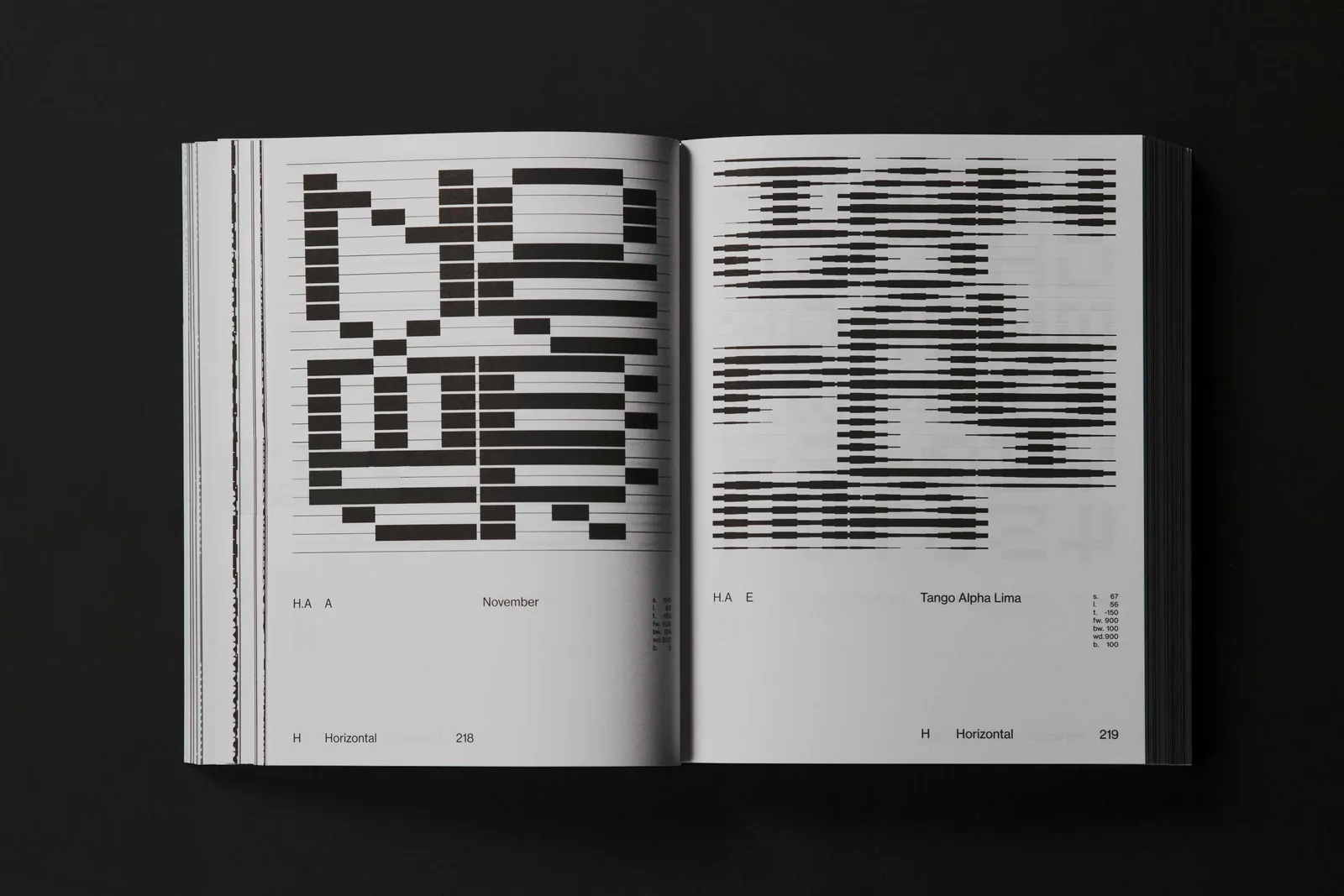
Alphabet Logo
Publisher: Counter Print
A collection of over 500 logos, each based on a single symbol.
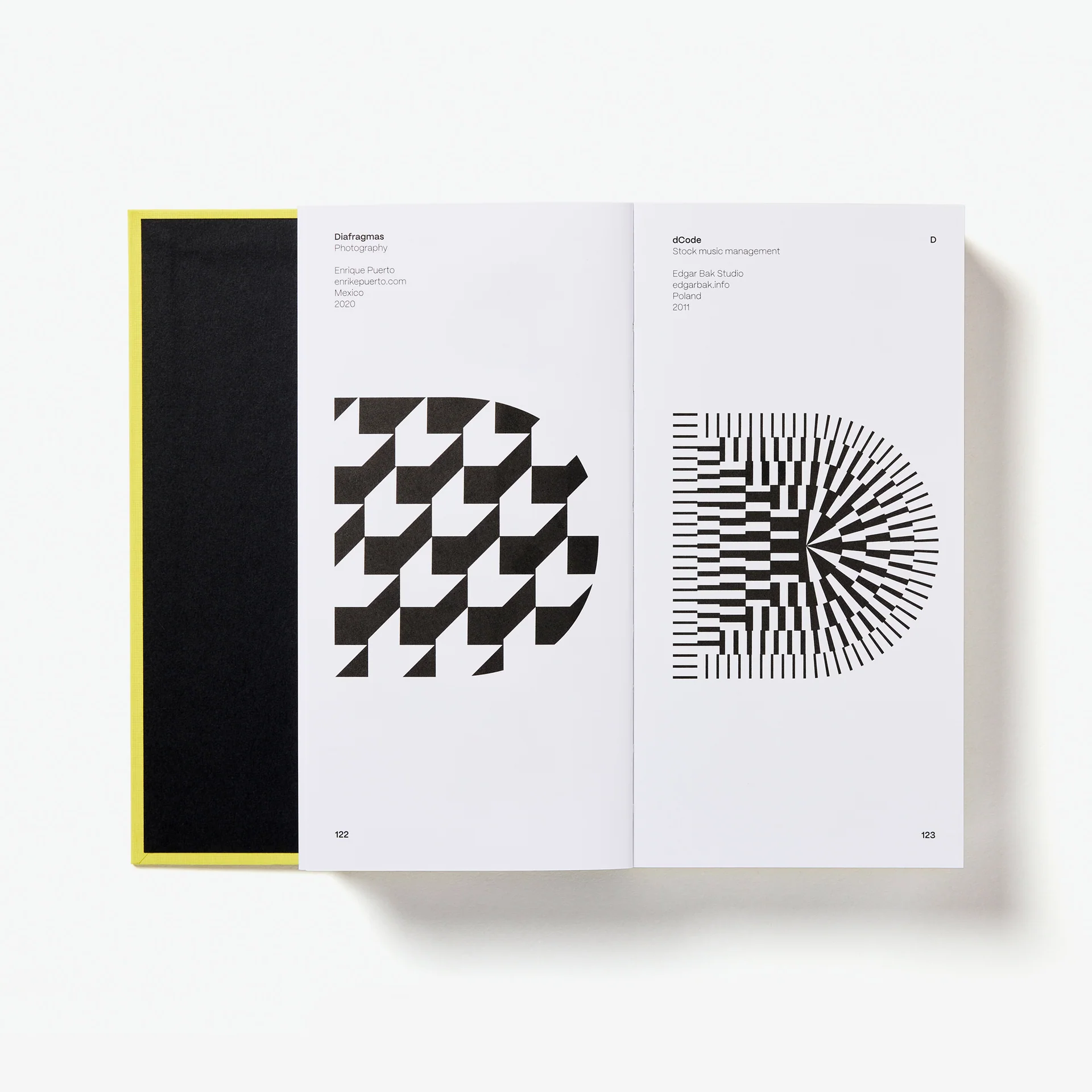
Building Ligatures: The Power of Type
Editor: Linda Kudrnovská
Publisher: TypeTogether
Selected essays by Fiona Ross, Catherine Dixon, Gerry Leonidas, Veronika Burian, José Scaglione, and others reflect on philosophical and ethical considerations, as well as the practical and technological aspects of typographic life.
Clara Istlerová: A Life Among Letters
Author: Anežka Minaríková
Publisher: Inventory Press
The first publication in English on the career of Czech graphic designer and typographer Clara Istlerová.
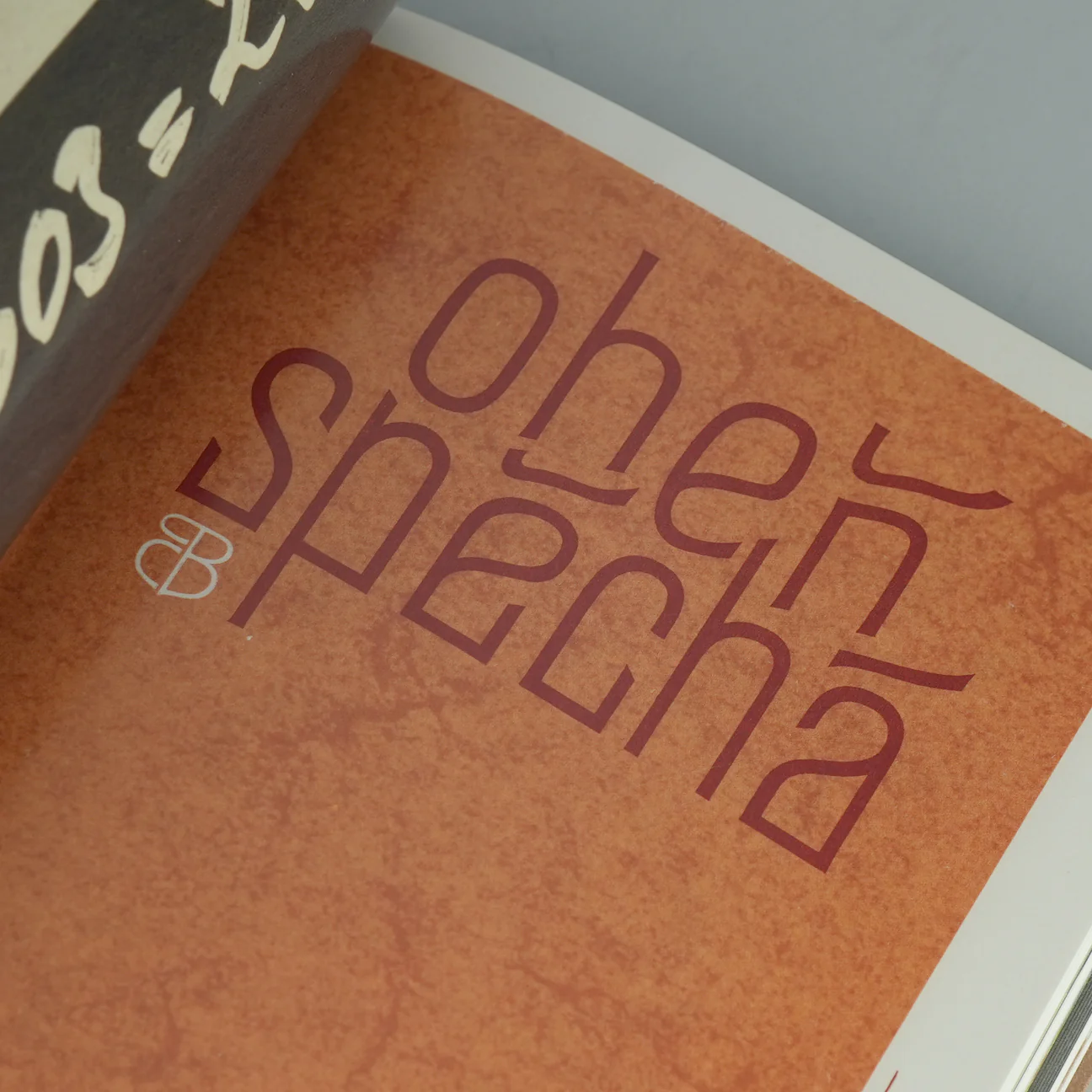
Conspiratorial Design. Information design for the bigger picture
Author: Carlo Bramanti
Publisher: Set Margins
A book about how design contributes to the formation of conspiracy theories.
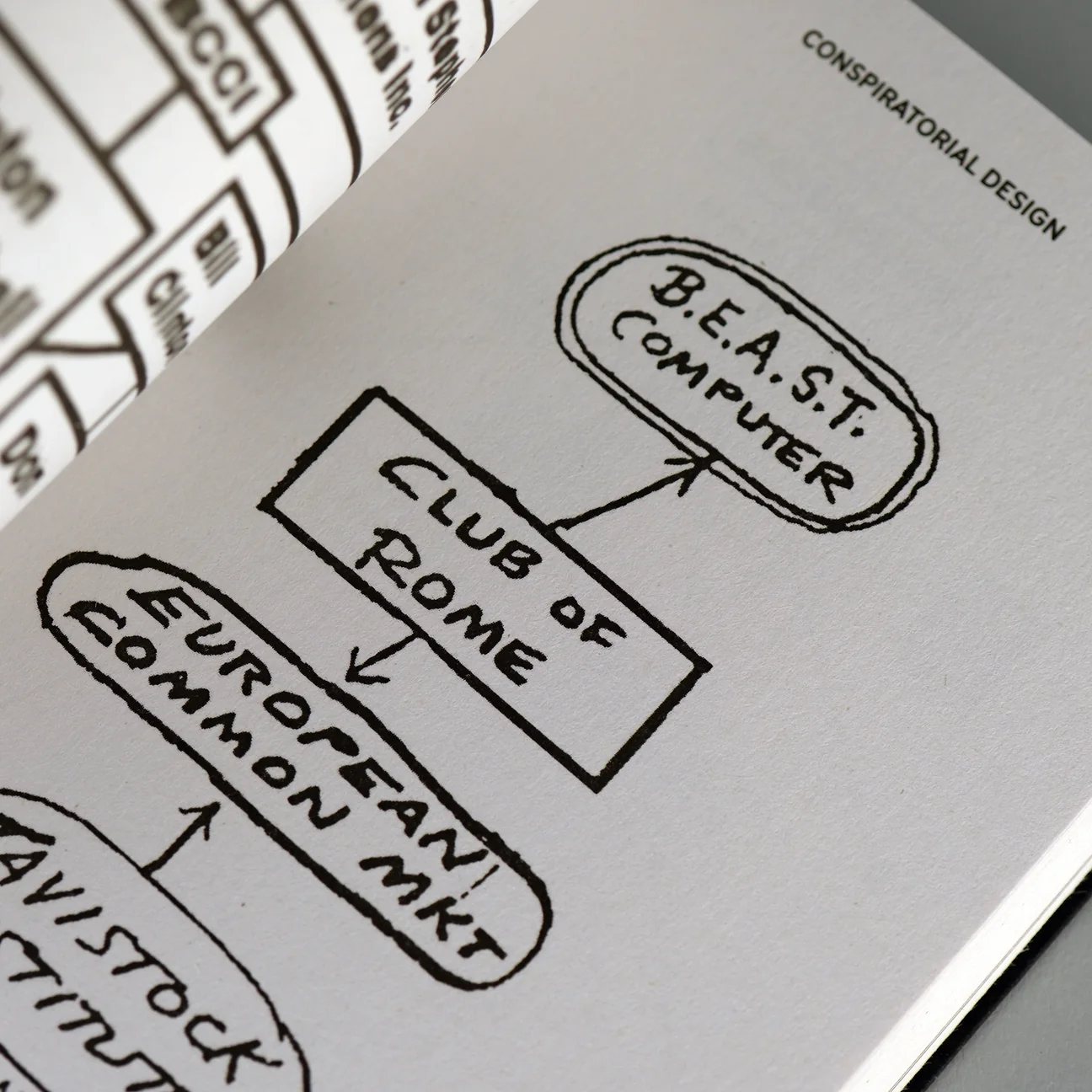
Design Against Racism
Author: Omari Souza
Publisher: Princeton Architectural Press
A historical and philosophical exploration of the impact of design on underserved communities, examining the field’s shortcomings as well as its potential to create positive change.
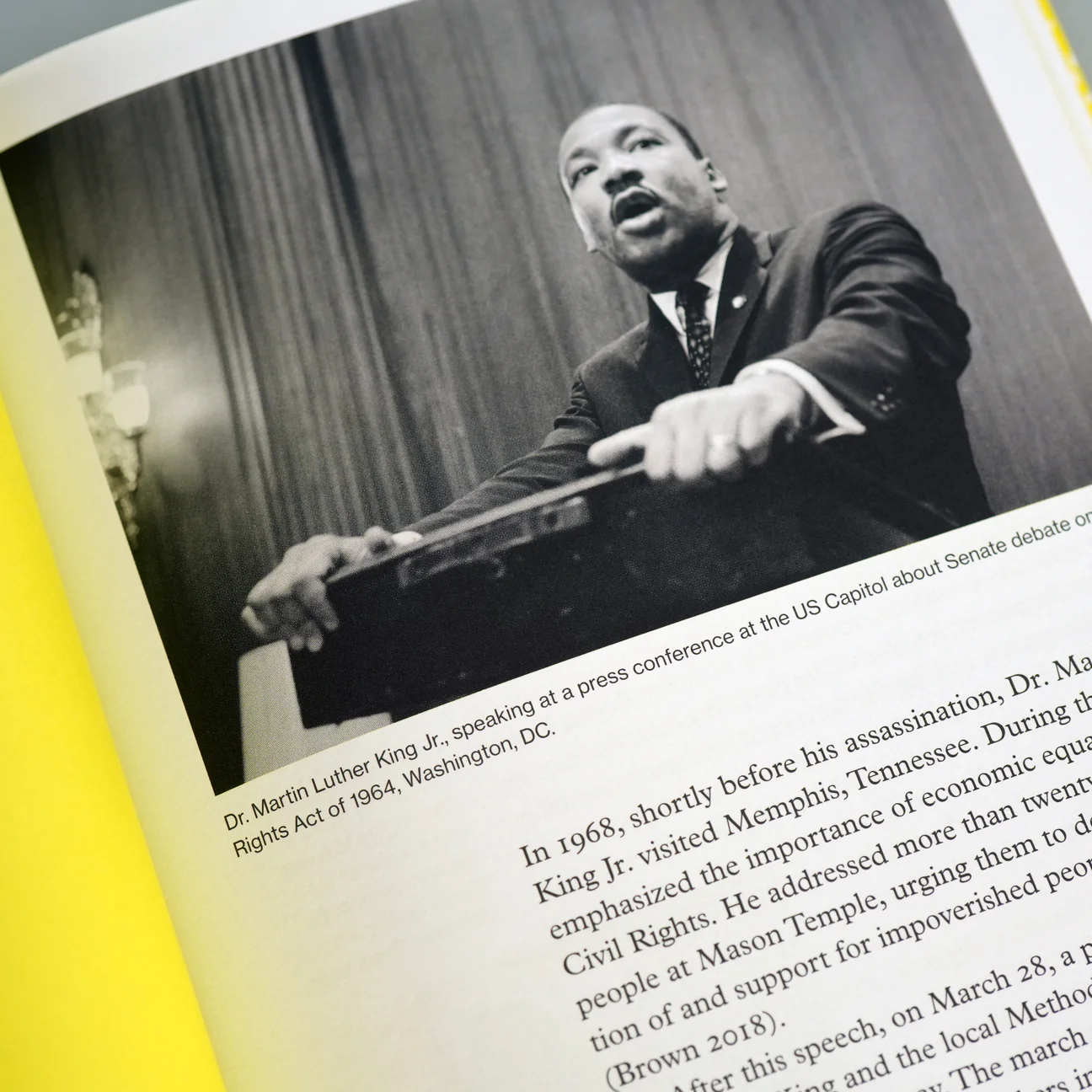
Design History Reader
Author: Kristen Coogan
Publisher: Onomatopee
A collection of essays critically examining the history of design as it is taught in Western universities.
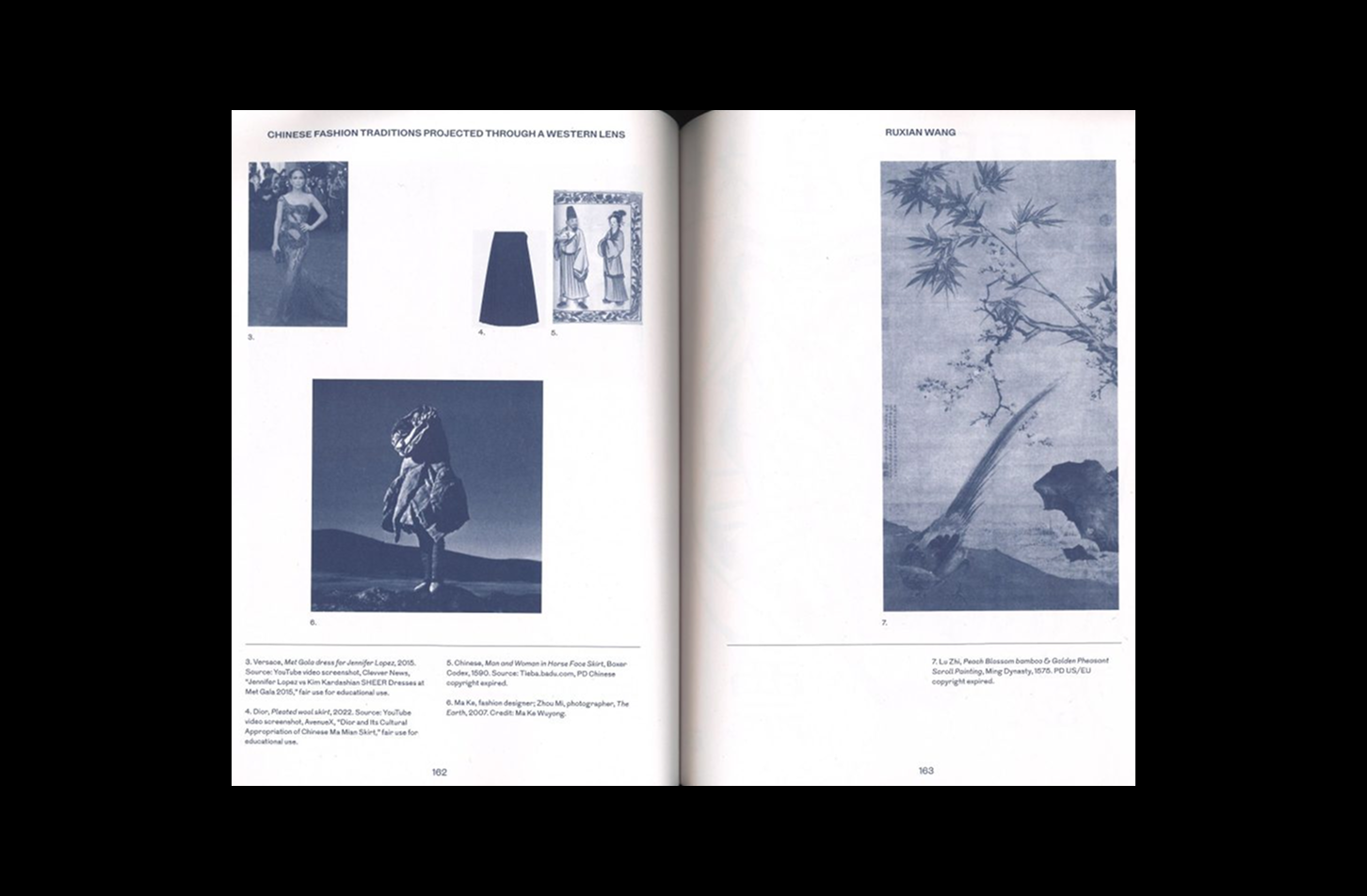
Disarming Design
Author: Annelys de Vet
Publisher: Valiz
Using three
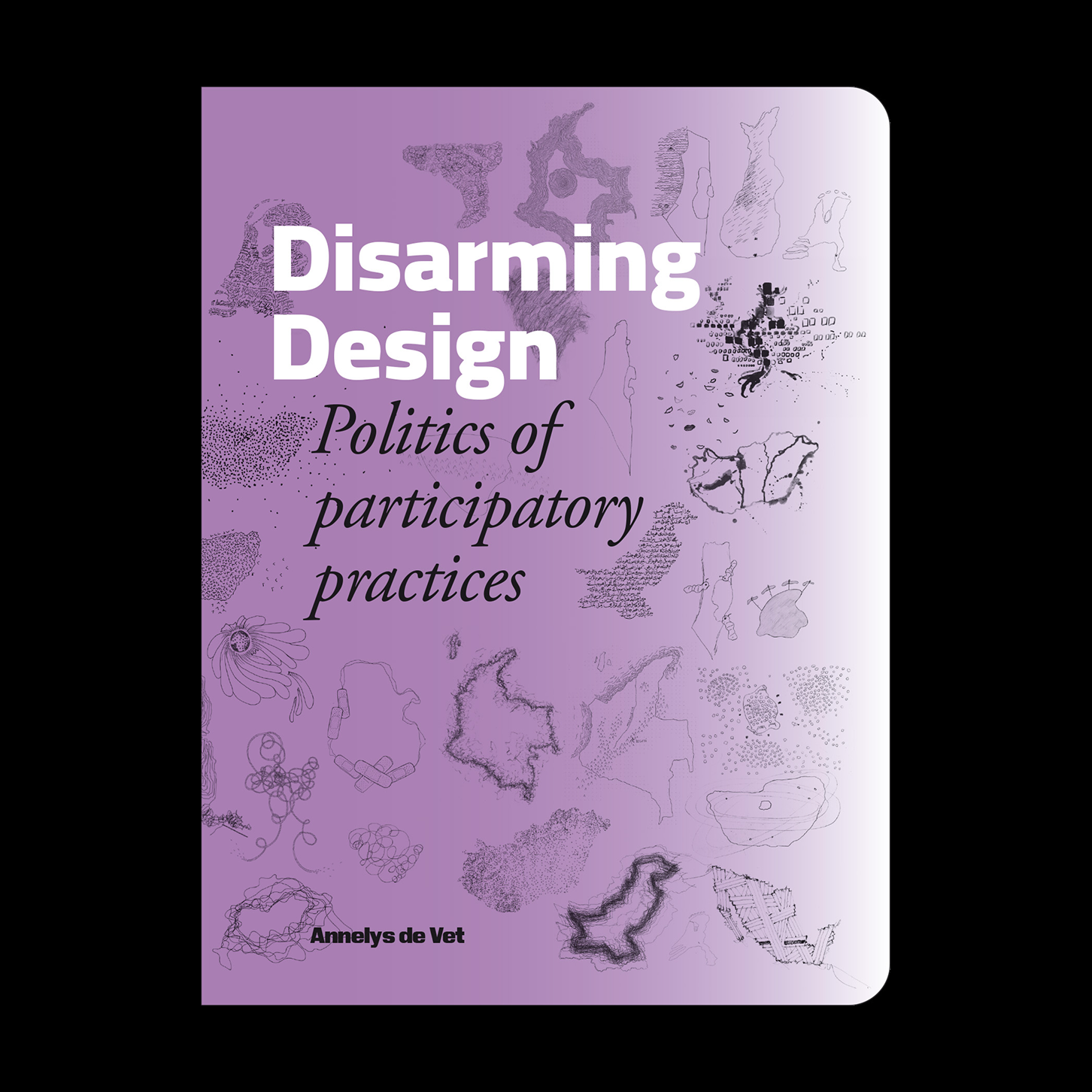
Disorder. Swiss Grit Vol. II
Authors: Chris Ashworth, Marvin Scott Jarrett, Adrian Shaughnessy
Publisher: Thames & Hudson
A book dedicated to the career of Chris Ashworth, charting his “Swiss Grit” approach from the influential Ray Gun magazine in the 1990s to his experimental type projects of today.
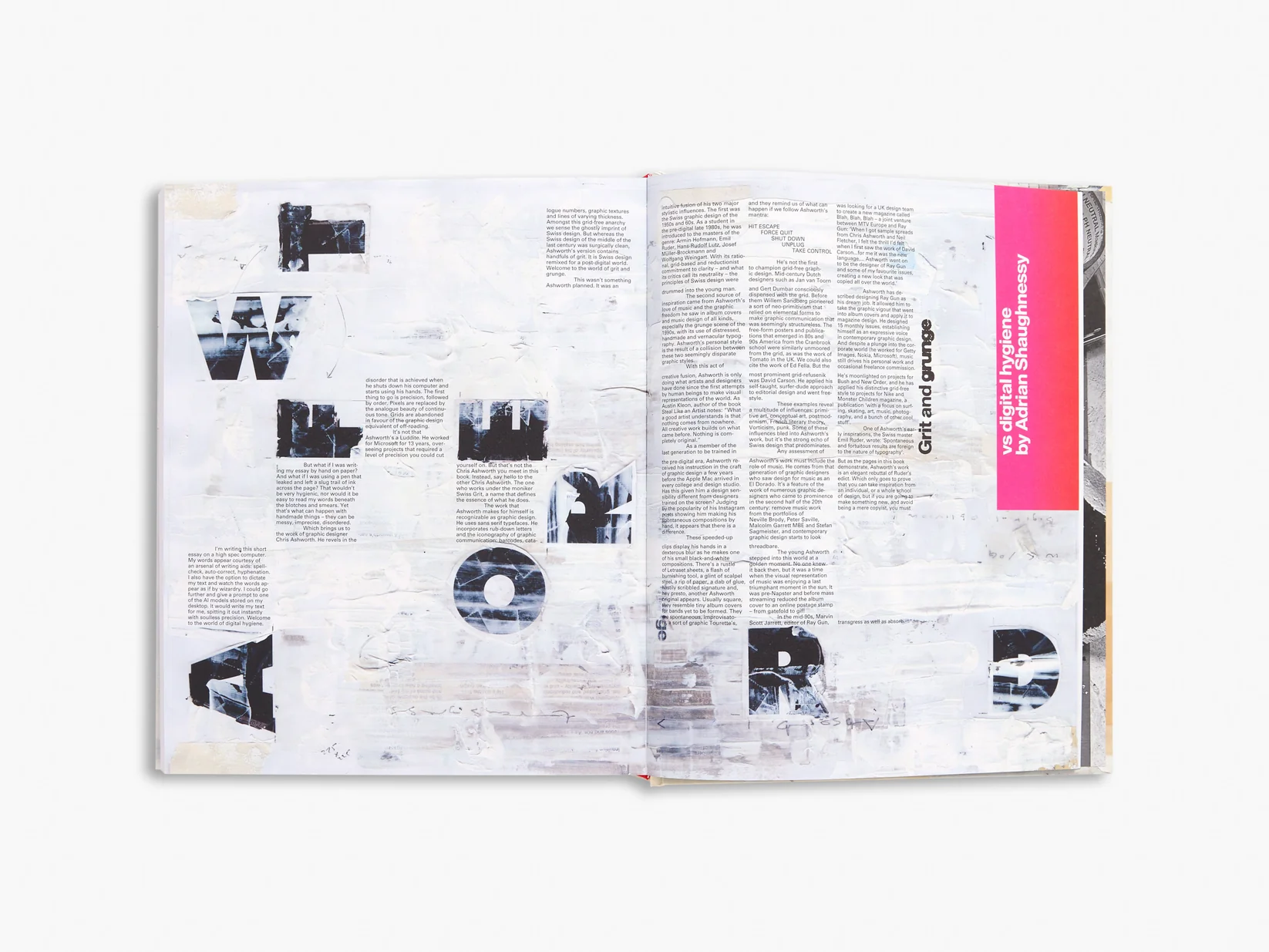
Face with tears of joy
Author: Keith Houston
Publisher: W. W. Norton & Company
An indispensable guide to the most vibrant part of modern language, by the author of the Shady Characters blog.
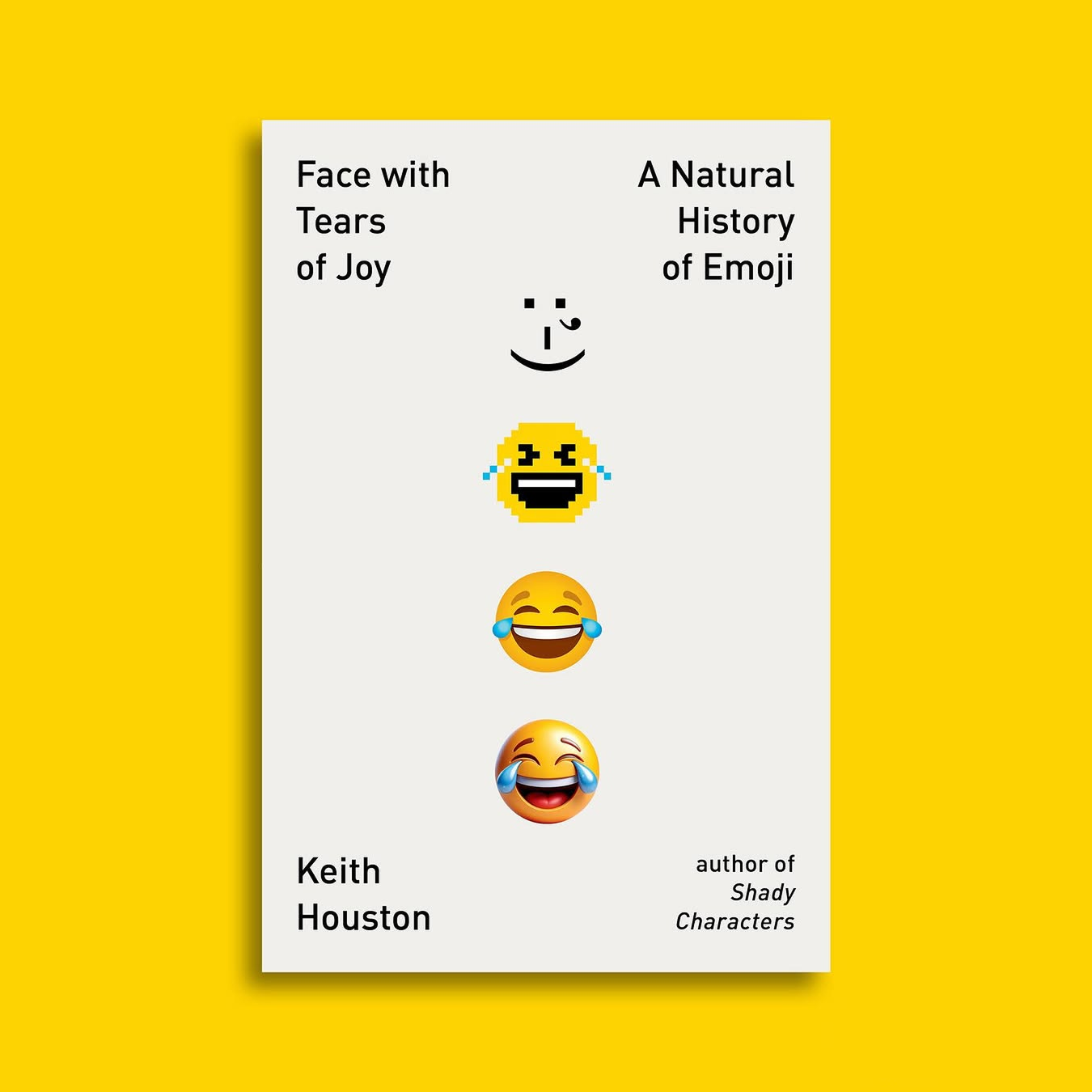
Fred Troller Design
Editor: Dani Piderman
Publisher: United editions
A monograph on Fred Troller, a designer who worked, among others, with American Airlines and IBM.
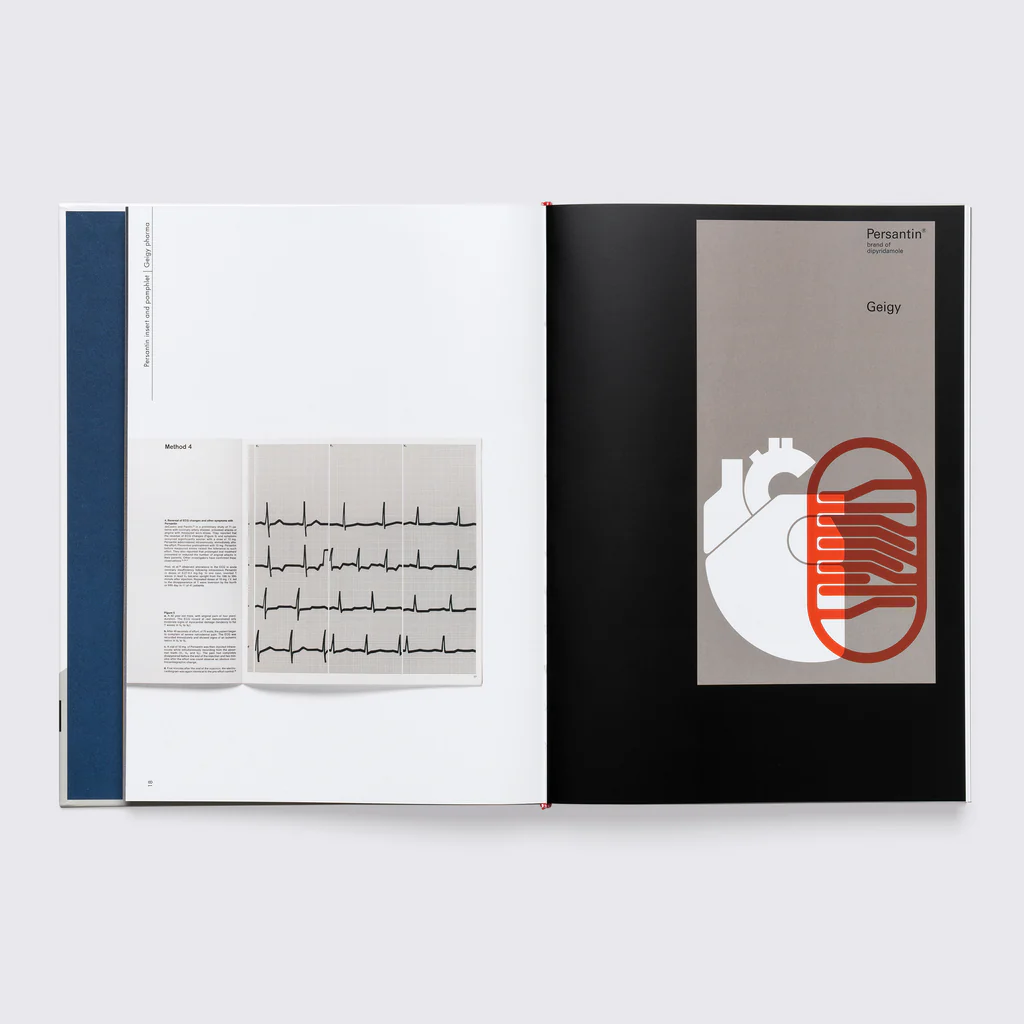
Gérard Ifert: A Design Antihero
Authors: Ascanio Cecco, Tony Côme, Catherine de Smet
Publisher: Éditions B42
A monograph on Gérard Ifert, who has worked as a graphic designer, scenographer, photographer, and furniture designer.
Graphic Design: 1890 to Today
Author: Jens Müller
Publisher: Taschen
Jens Müller traces the history of graphic design over the past 135 years. Among the most important projects of this period, he highlights Massimo Vignelli’s New York City subway signage, Milton Glaser’s I ❤️ NY lettering, and Stefan Sagmeister’s posters.
Graphic Languages — A Visual Guide to the World’s Writing Systems
Editor: Oliver Häusle
Publisher: Slanted Publishers
A book that explores the boundaries of legibility of individual characters in Cyrillic, Hebrew, Georgian, Armenian, Latin, Devanagari, and other scripts.
International Poster Book #10
Publisher: INTL
A catalogue of the British poster competition International Poster Exhibition, featuring commentary from the jury.
Ken Garland: Structure and Substance
Editor: Adrian Shaughnessy
Publisher: United Editions
A reissue of the monograph on the English designer Ken Garland, with a foreword by Adrian Shaughnessy.
Kulachëk
Publisher: Counter Print
The first monograph on designer Anna Kulachёk.
Lettres Décoratives: A Century of French Sign Painters’ Alphabets
Introduction: Morgane Côme
Publisher: Letterform Archive
A kaleidoscopic survey of letterforms from 19th- and 20th-century France.
Logo Beginnings. Logo Modernism
Аuthor: Jens Müller
Publisher: Taschen
A collection of 1,000 well-known and lesser-known logos from the 19th and 20th centuries.
MXTP Vol. 1
Publisher: Maxitype and Plasma
A collection of “blocky, experimental, arrogant, distorted, unbalanced, delicate, psychedelic, bubbly” typefaces drawn by participants of the Maxitype residency in Cucuron, France.
Molecular Typography Laboratory
Аuthor: Kobi Franco
Publisher: Slanted Publishers
A speculative research project that delves into experimental typography, exploring the intersection of function versus aesthetics and content versus form.
On the Edges of Graphic Design from A—Z—∞
Аuthor: Anja Lutz
Publisher: Set Margins
Residents of the Berlin-based space A — Z Presents, focused on experimental and multidisciplinary graphic design, share their visions of the future of design and stories from the past.
Unbound
Аuthor: Karel Martens
Publisher: Roma Publications
A catalogue of works by Karel Martens, published in conjunction with his exhibition at the Stedelijk Museum Amsterdam.
Yearbook of Lettering #2
Editor: Linus Haug
Publisher: Slanted Publishers
A collection featuring the work of nearly 100 designers working with lettering. The book also includes interviews with calligraphers Ken Barber, Ruben Malayan, and Tina Touli.
100 Beste Plakate 24
Publisher: Slanted Publishers
Catalogue of the annual “100 Beste Plakate” competition.